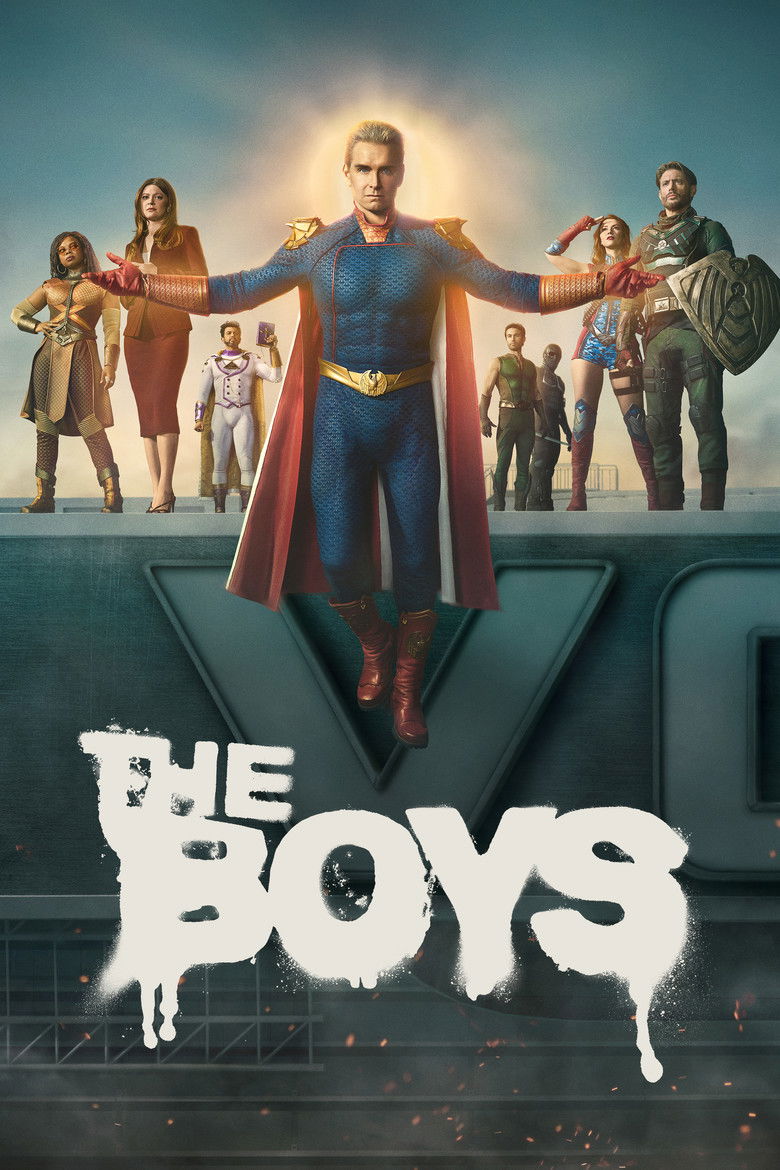
About the The Boys font
The Boys uses a loud, all-caps display. Anton recreates its brash, anti-hero punch.
What font is used in the The Boys logo?+
The original The Boys logo uses custom lettering. This generator recreates the look with Anton — a free, open-license font you can style and download.